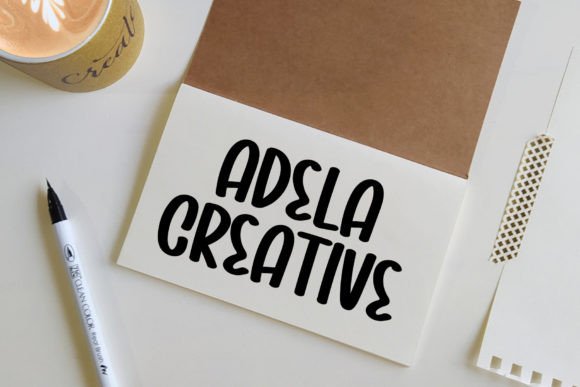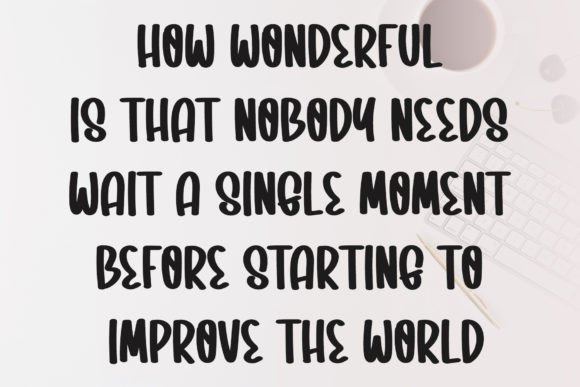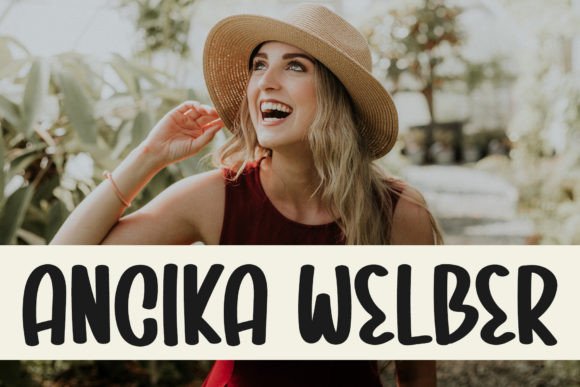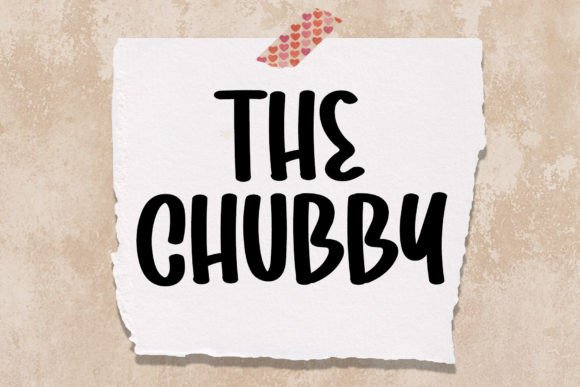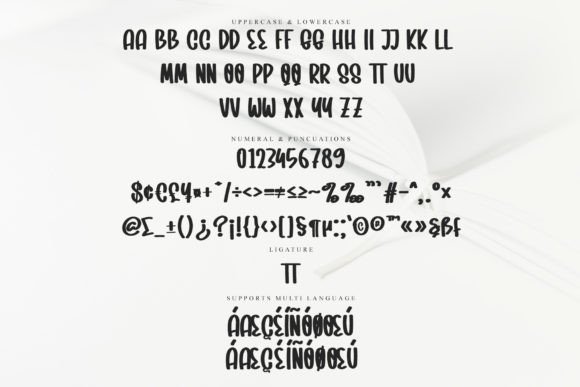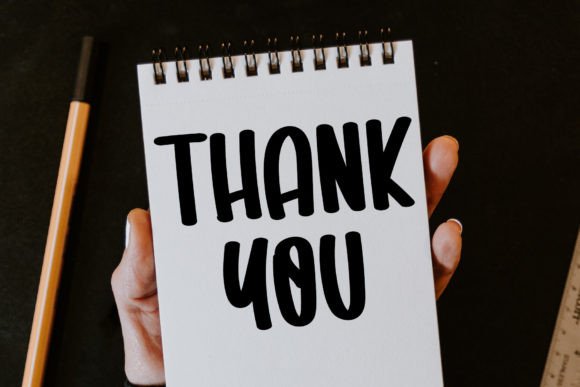
Introduction to Mama Retro Font Font
Fonts play a crucial role in design, and the Mama Retro Font font is a typeface that brings both character and versatility to any project. Whether you’re working on a branding project, a website, or a print design, the Mama Retro Font font offers a unique style that can elevate your work.
Mama Retro is a beautiful display lovely font perfect for magazines and crafts.
The Mama Retro Font font is more than just a typeface – it’s a design tool that helps you communicate your message with style and clarity. Its unique character set and versatile design make it suitable for a wide range of applications, from elegant invitations to bold headlines.
With its carefully crafted letterforms and balanced proportions, the Mama Retro Font font ensures readability and visual appeal across all mediums.
What makes Mama Retro Font font special?
The Mama Retro Font font stands out with its unique design, exceptional readability, and versatility across various design applications.